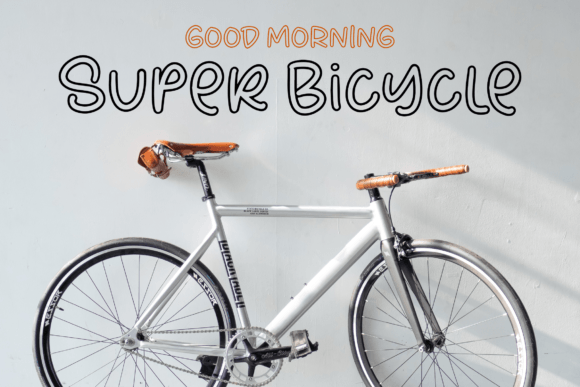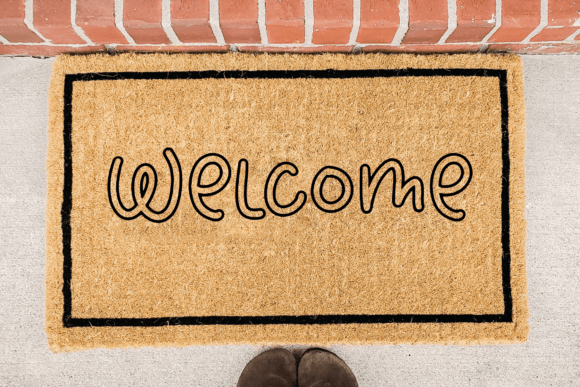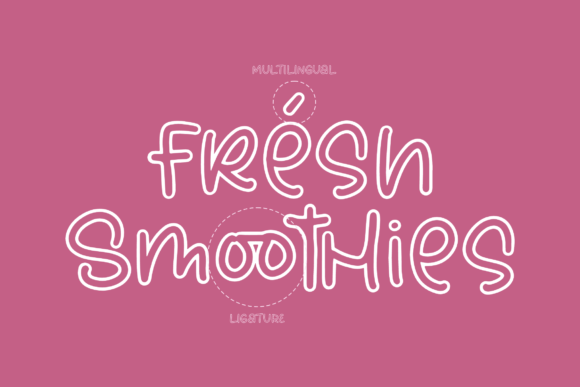
About Smoothies Font
Smoothies is a captivating handwritten font designed to infuse a delightful script taste into a myriad of creative projects. Its versatility makes it an excellent choice for a broad spectrum of applications, including logos, branding projects, homeware designs, product packaging, mugs, quotes, posters, shopping bags, t-shirts, book covers, name cards, invitation cards, greeting cards, labels, photography, watermarks, special events, and any other lovely project that calls for a touch of beautiful script.
The charm of Smoothies lies in its handwritten quality, adding a personal and organic touch to your designs. Whether you’re looking to create a standout logo, establish a cohesive brand identity, or adorn various materials with a unique script, Smoothies stands ready to meet the demands of your creative vision.
Smoothies transcends mere functionality; it becomes a design element that brings a beautiful script taste to every project it graces. Its fluid strokes and natural flow make it particularly suitable for projects that demand an effortless and graceful aesthetic.
In summary, Smoothies is a font that not only meets but exceeds expectations, becoming a valuable asset for designers across diverse mediums. Whether your canvas is digital or tangible, Smoothies is poised to enhance the beauty of your creative endeavors, leaving an indelible mark on logos, branding materials, product packaging, and various other projects that call for the unique charm of a beautifully crafted script.